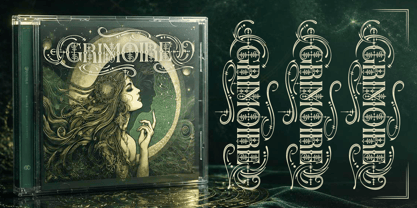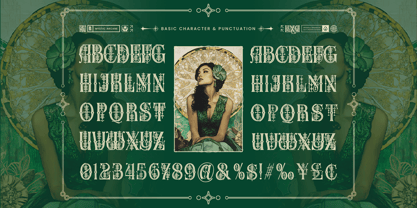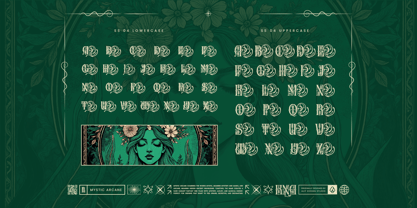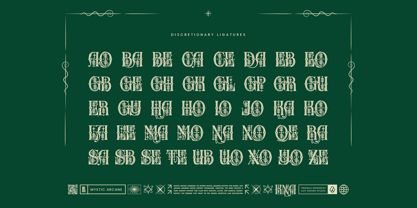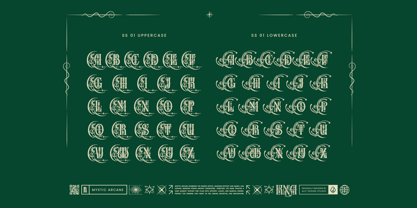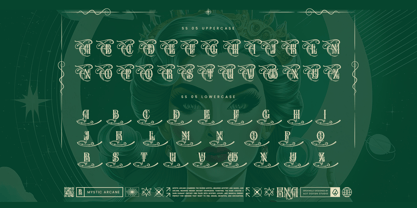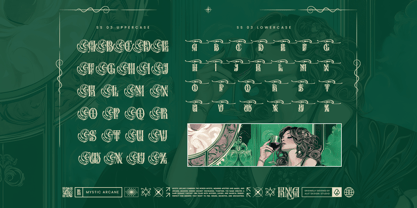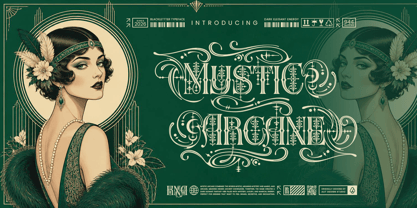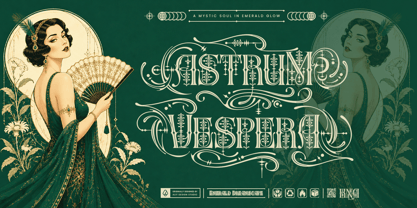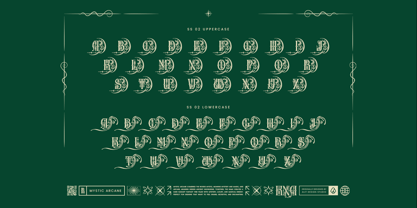
Mystic Arcane
Mystic Arcane Typeface – A Dark & Elegant Blackletter Font
Step into a world of mystery and grandeur with Mystic Arcane, a captivating blackletter typeface that perfectly balances dark, elegant energy with enchanting fantasy vibes. Originally designed by Alit Design Studio, this font evokes the feeling of being irresistibly drawn into a realm of hidden ancient knowledge, luxury, and magic.
Mystic Arcane is crafted for designers who want their projects to feel grand, secretive, and utterly spellbinding. With its intricate details, mesmerizing swooshes, and timeless mystical aura, it brings a touch of "savage elegance" to any canvas. Whether you are designing captivating book covers, enchanting packaging, neo-noir movie posters, high-end apparel, or striking tattoo branding, Mystic Arcane delivers an unforgettable visual experience.
Unleash your creativity with an expansive set of features. Mystic Arcane is packed with an impressive 944 glyphs, offering unparalleled versatility. Explore a rich collection of stylistic alternates and discretionary ligatures to create customized, flowing typography that feels hand-crafted and bespoke.
• 944 Glyphs for ultimate design flexibility
• Basic Uppercase & Lowercase Characters
• Numbers, Punctuation & Symbols
• Extensive Multilingual Support
• Rich Stylistic Alternates (SS01 – SS10) to customize your typography
• Discretionary Ligatures for a seamless and decorative flow
Perfect For: Apparel and T-shirt designs, book covers, album artwork, luxury packaging, vintage branding, tattoo studio logos, esoteric designs, and any project that demands a sophisticated, gothic, and magical aesthetic.
Embrace the spellbound beauty of the dark and let your designs shine with Mystic Arcane.